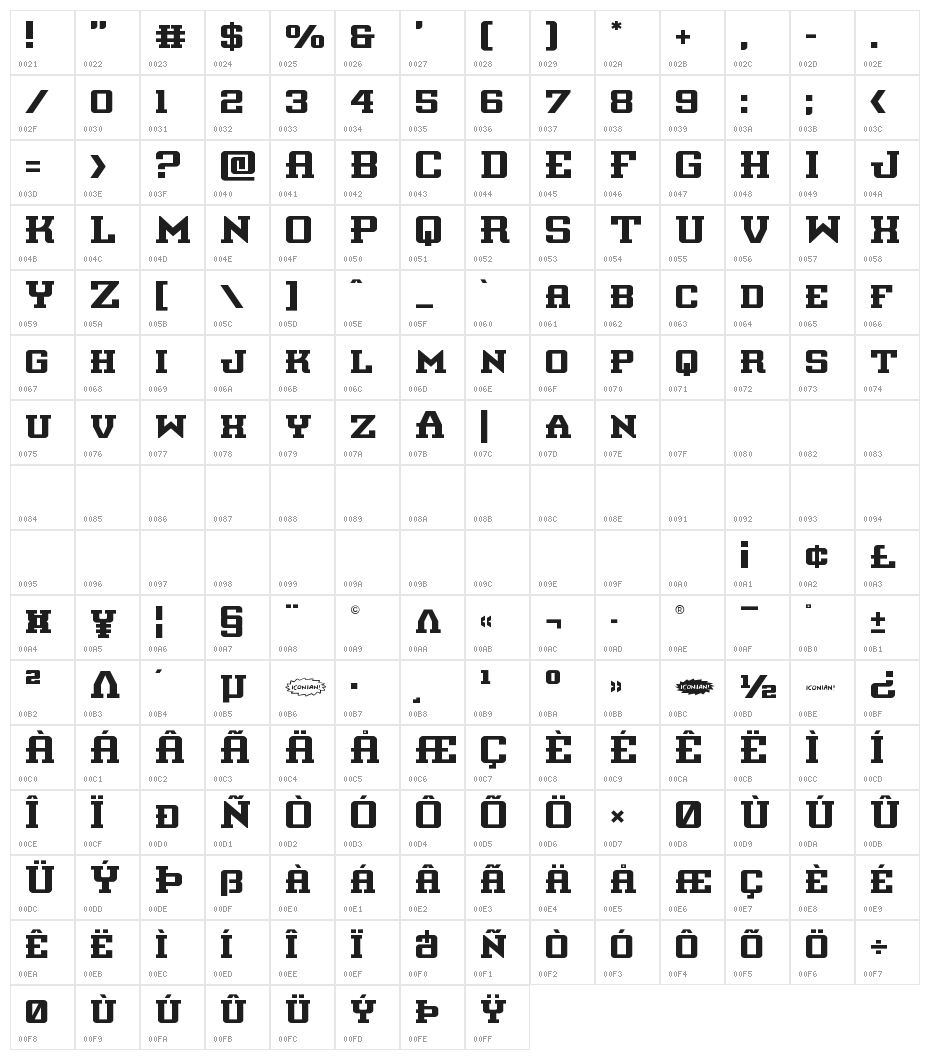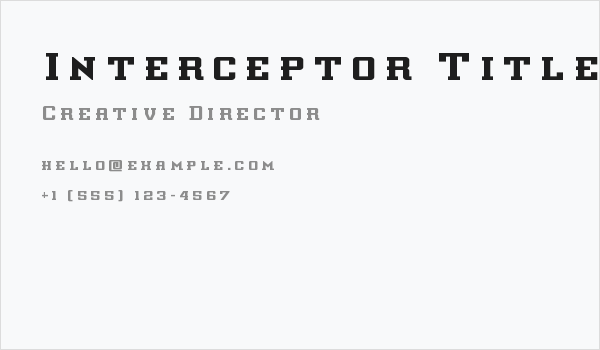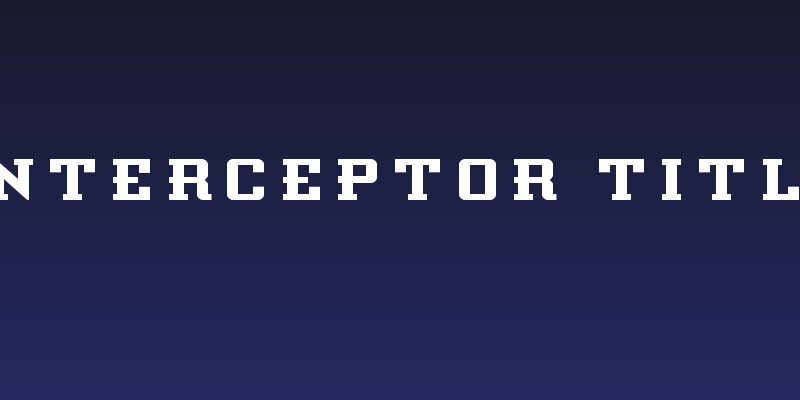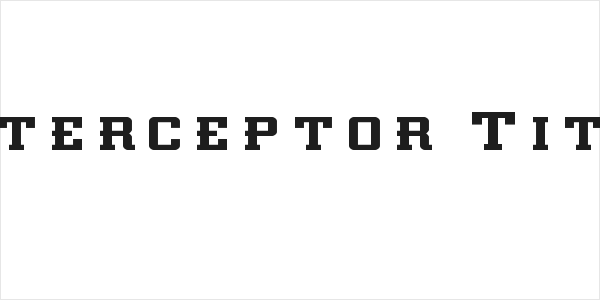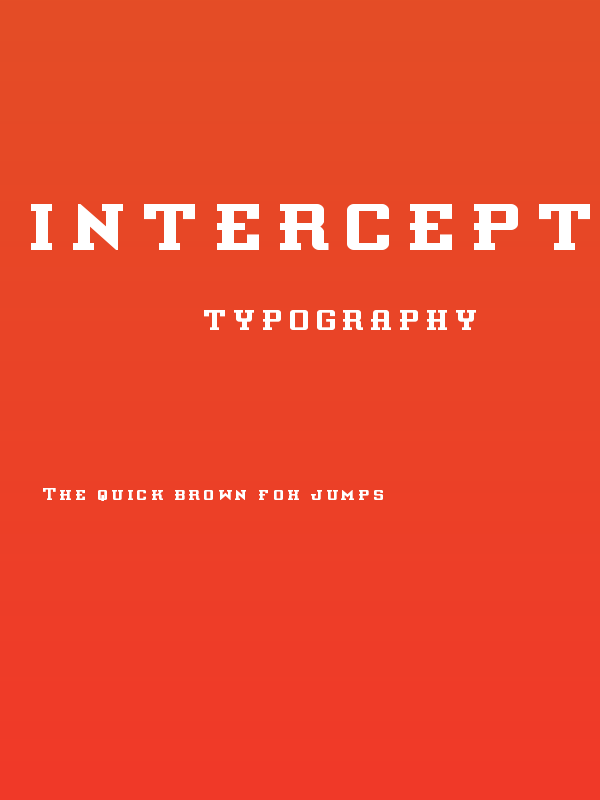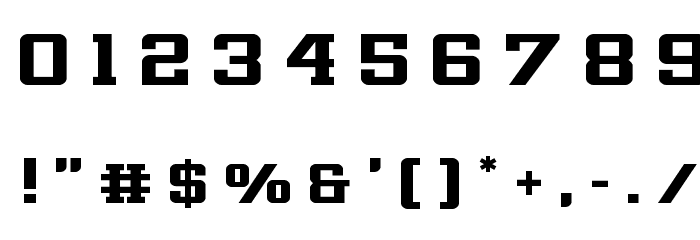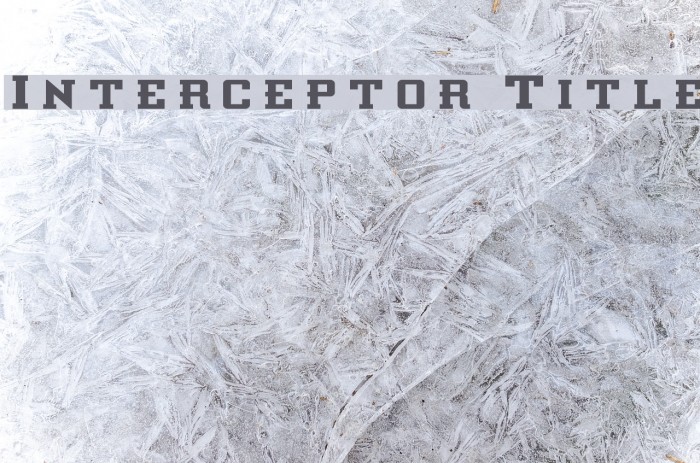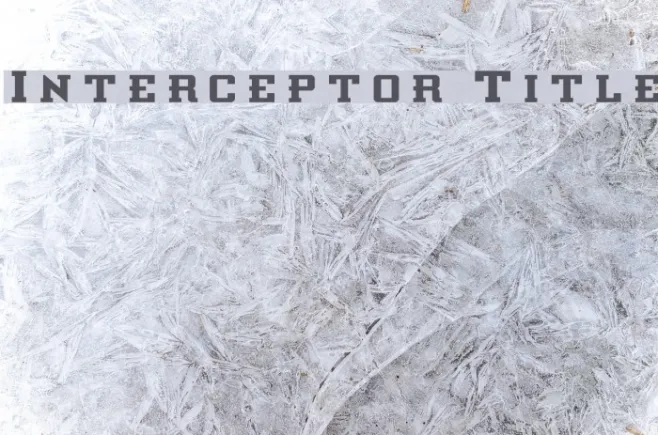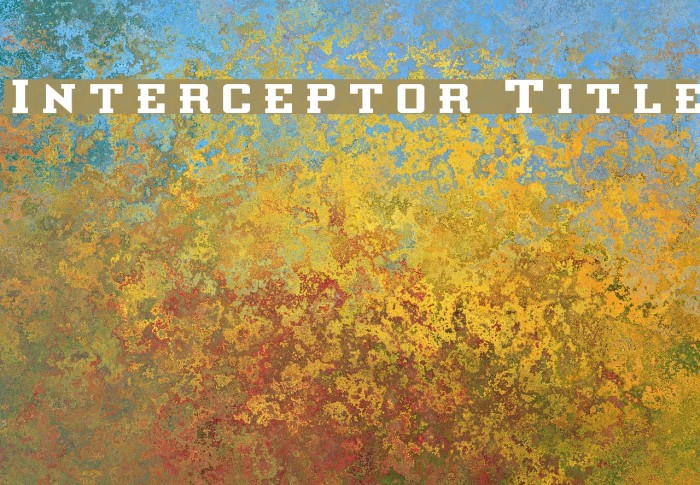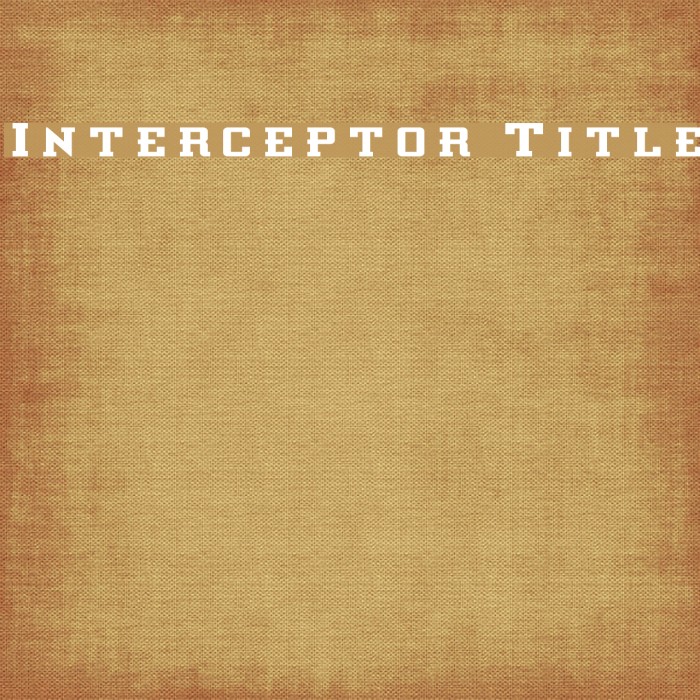
Interceptor Title Font
Interceptor Title Description
This font features a bold, geometric design with a strong presence. The characters are constructed with a blocky, angular style that gives it a modern and industrial feel. Each letter is distinct, with sharp edges and uniform stroke widths, creating a cohesive and impactful appearance. The uppercase and lowercase letters maintain a consistent height, while the numerals are designed to match the boldness of the alphabet. Special characters are included, each following the same robust design principles. This font is ideal for projects that require a strong visual impact and a contemporary aesthetic.
| Proposed Projects | Ideal for branding, posters, headlines, and any design requiring a strong, modern aesthetic. |